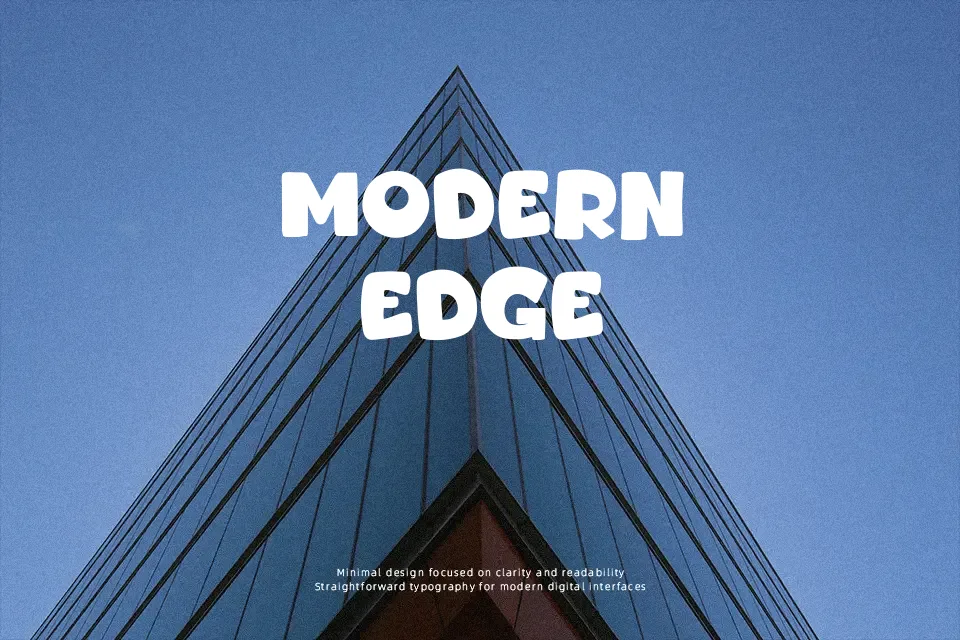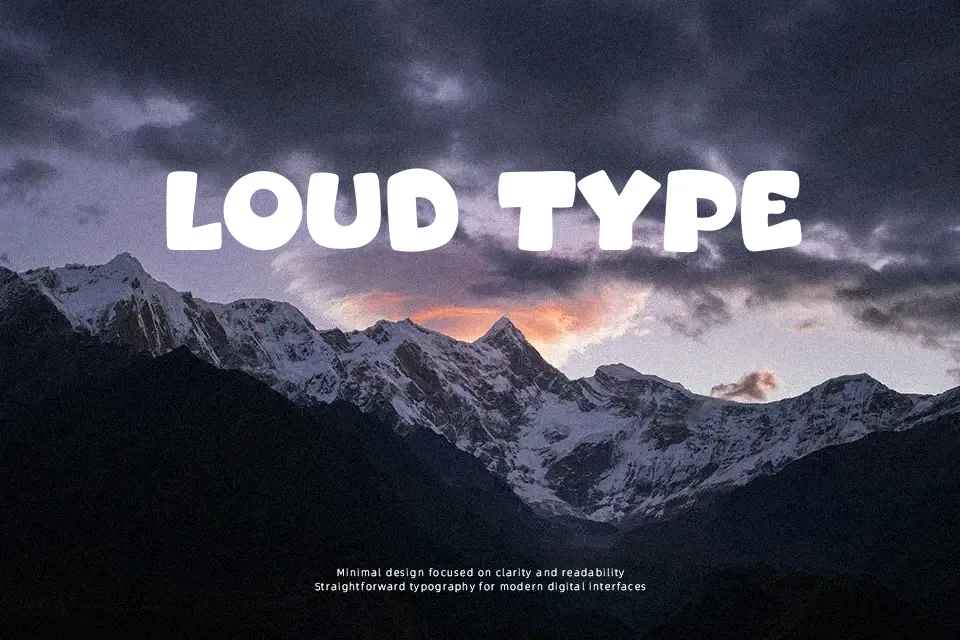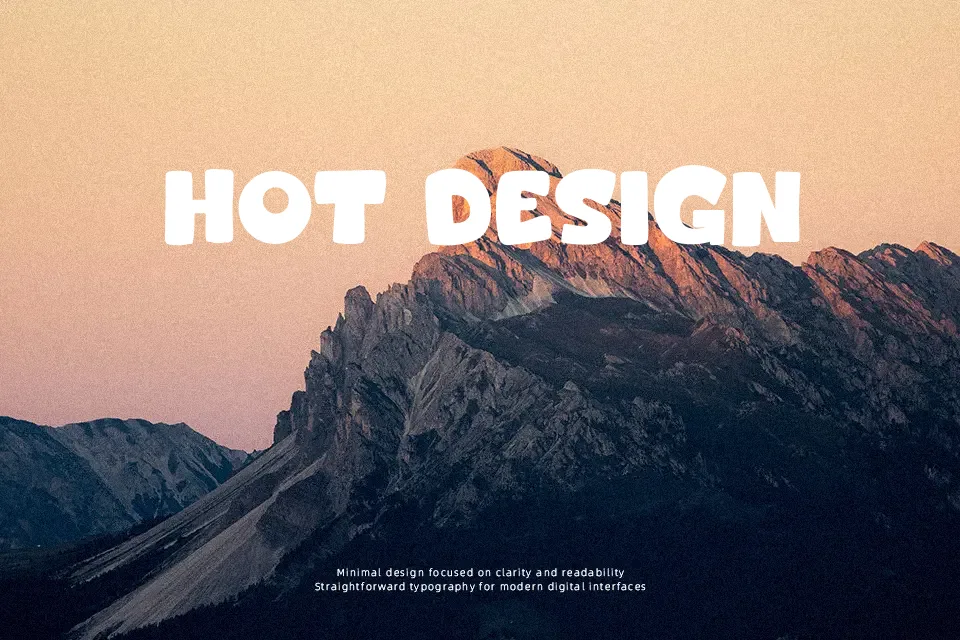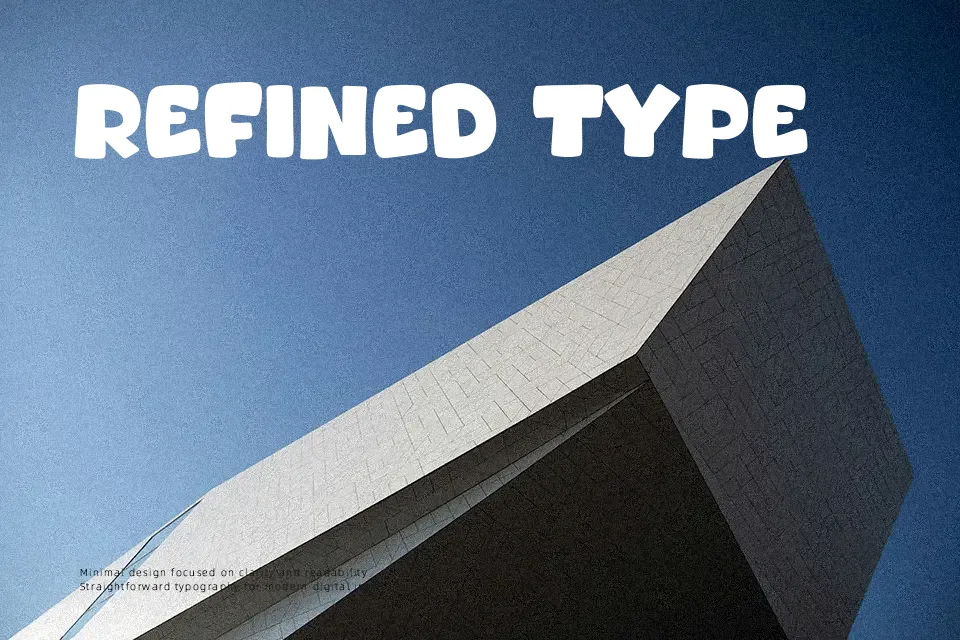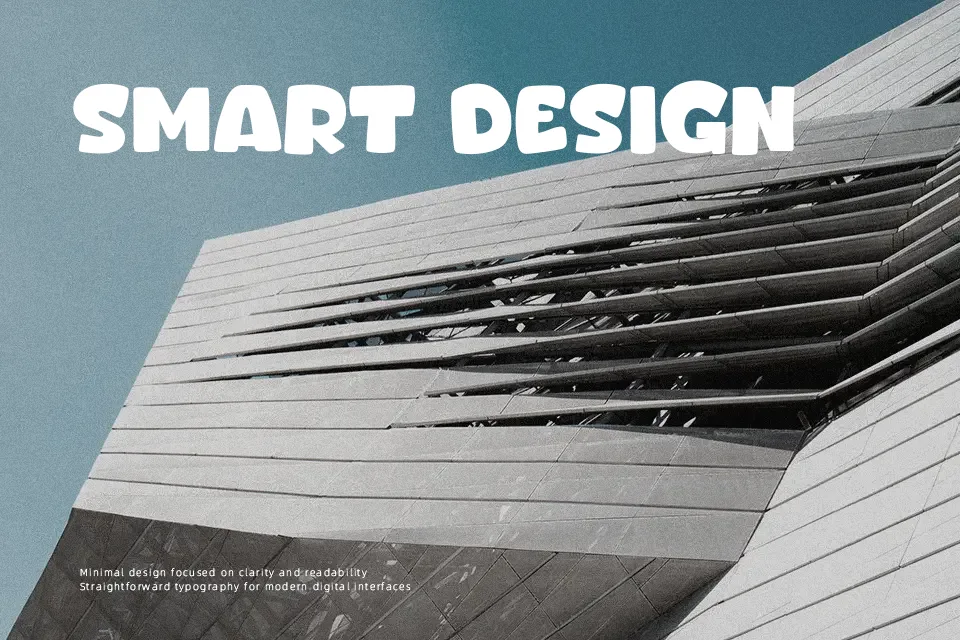
Bhel Puri Font
The strokes are uniformly heavy with low contrast and soft, rounded terminals — a construction that gives each character a cartoon-inflated look without leaning into full comic-book exaggeration. Uppercase letters carry the most visual weight, making them the natural choice for single-line headers or short branded phrases. The spacing feels generous enough to keep the chunky forms readable at display sizes, but that same boldness collapses at small sizes — body text and captions are simply out of scope. It fits naturally into food-brand visuals, children’s content, and street-fair energy where a casual, approachable tone matters more than refinement. Designers expecting a versatile workhorse will find it frustrating; designers who need a personality-driven headline face will find it does that one job well.
– Food packaging labels and street-food brand headers
– Children’s book cover titles or activity page headlines
– Event posters and festival promotional banners
– Playful logo lockups for casual lifestyle brands
– Body text or paragraph-length copy
– Corporate identity materials requiring a formal tone
– Small-size UI labels or navigation elements
– Multilingual layouts requiring extended character sets
Perfect for branding, kids, and logo, with a bold and cartoon style.